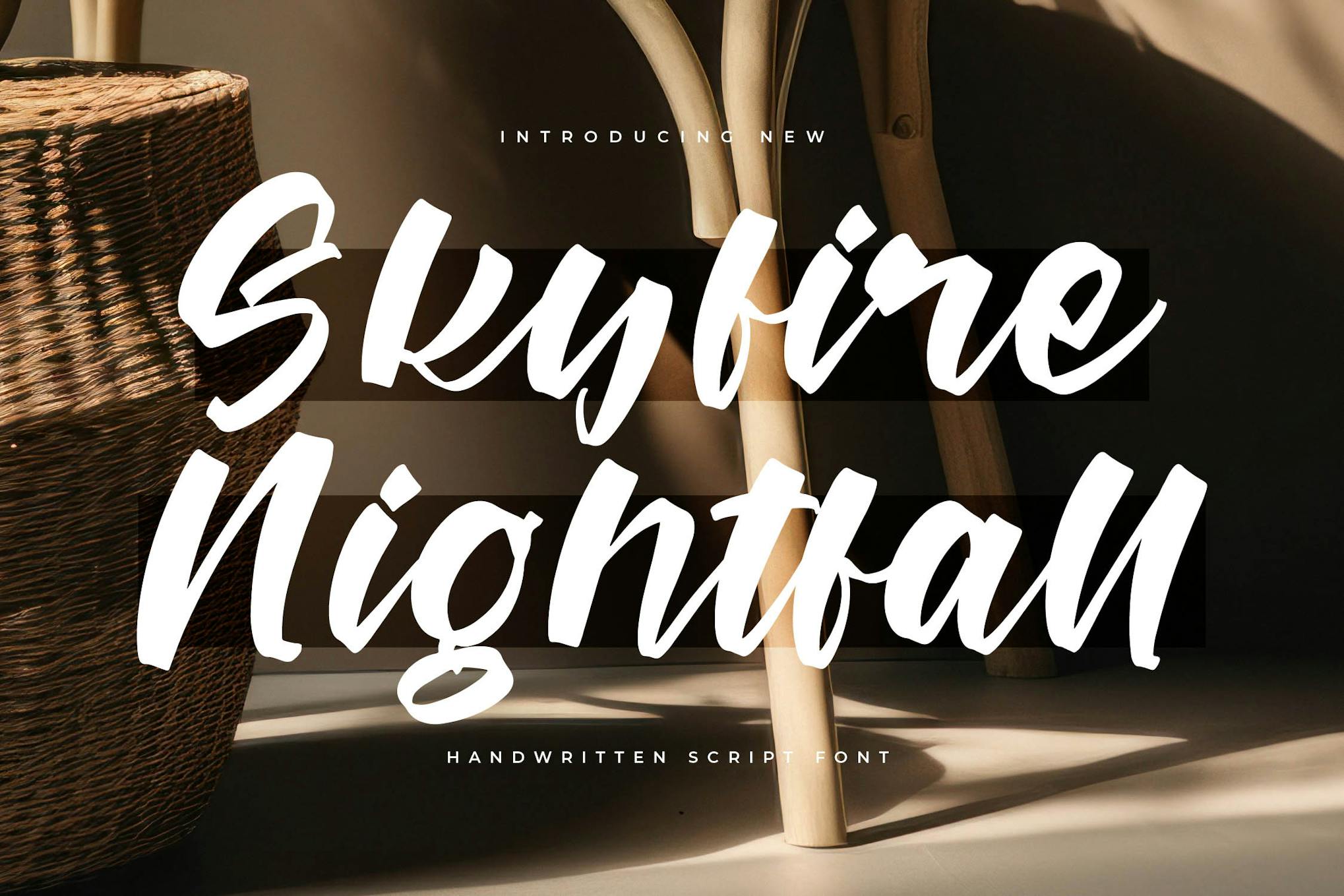
Skyfire Nightfall Handwritten Script Font
Skyfire Nightfall Handwritten Script Font is a beautifully crafted typeface that adds a personal touch to any design project. With its elegant, flowing letters and normal spacing, this font is versatile enough for various uses, making it ideal for invitations, branding, and creative presentations. It enhances visual communication by infusing warmth and authenticity into the text.